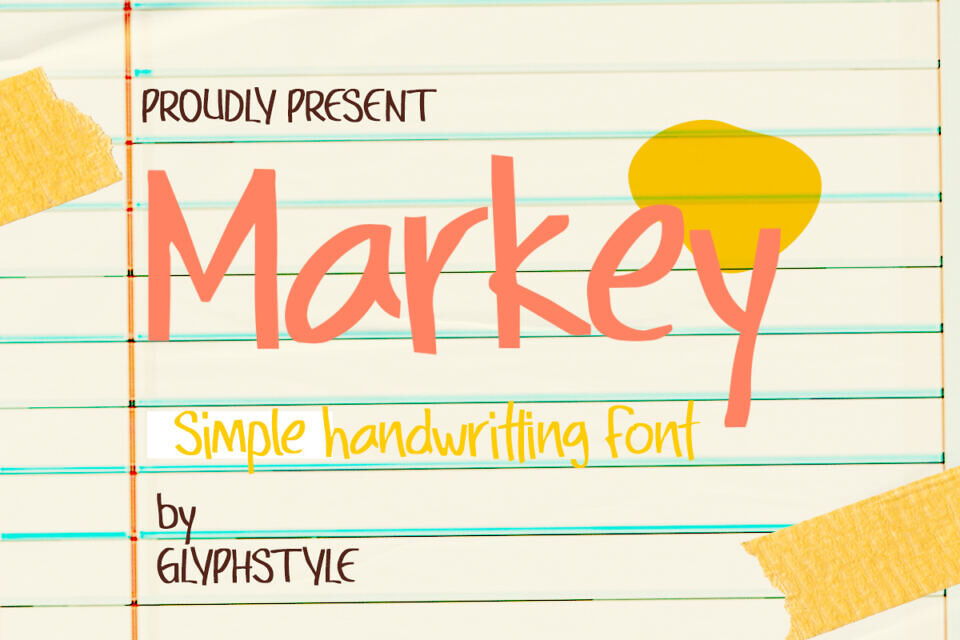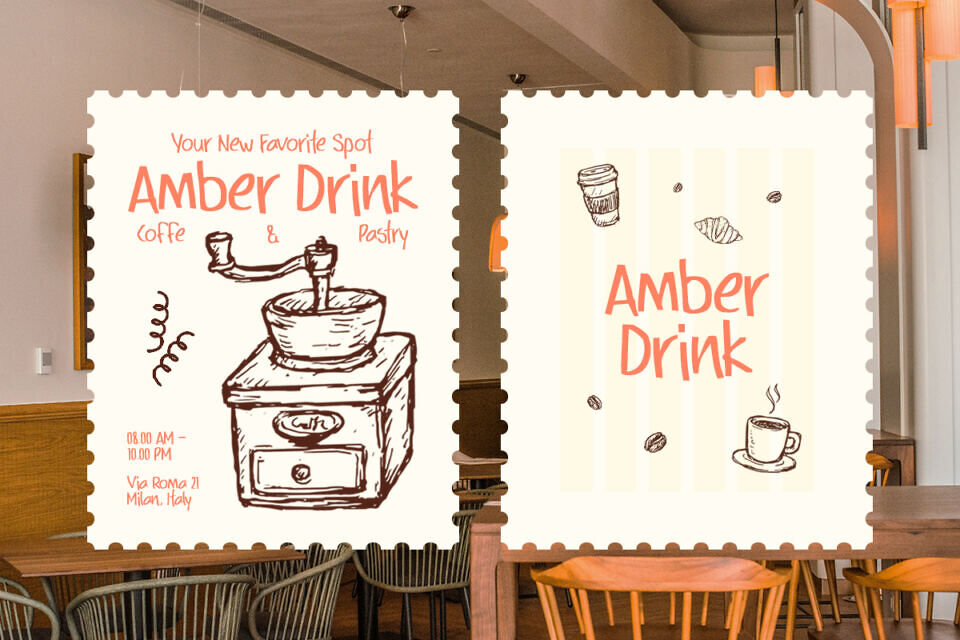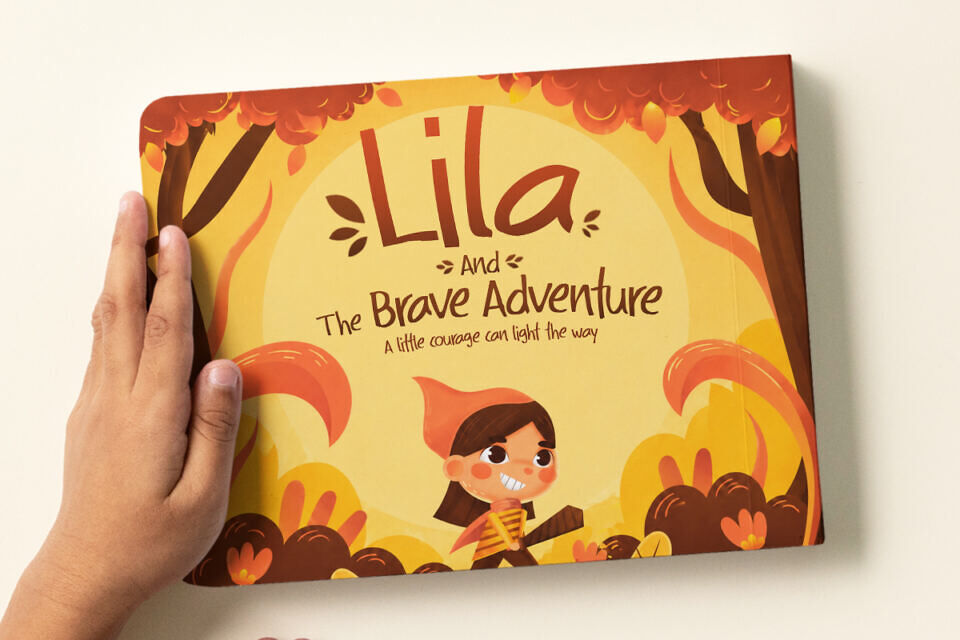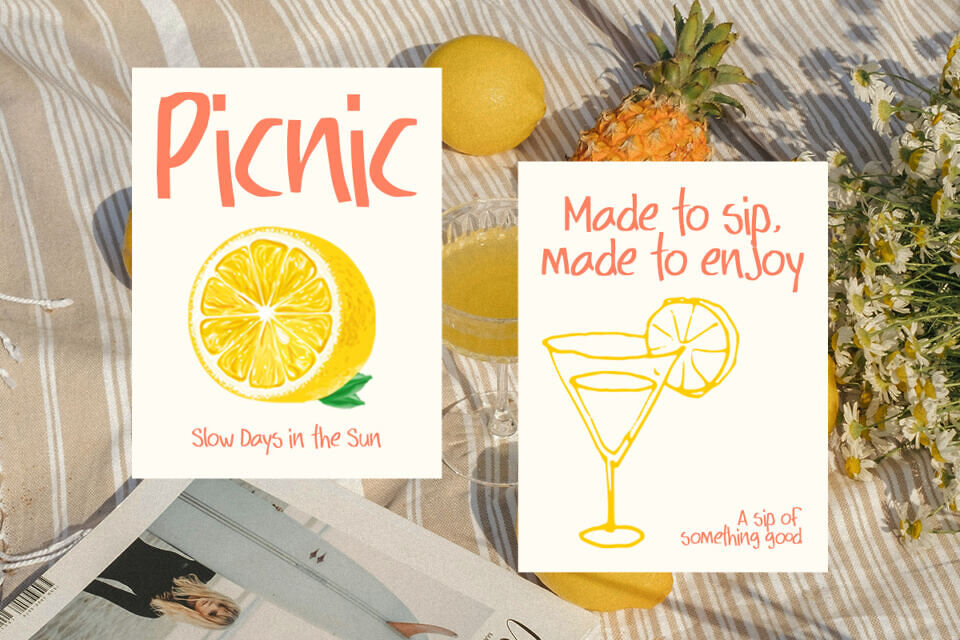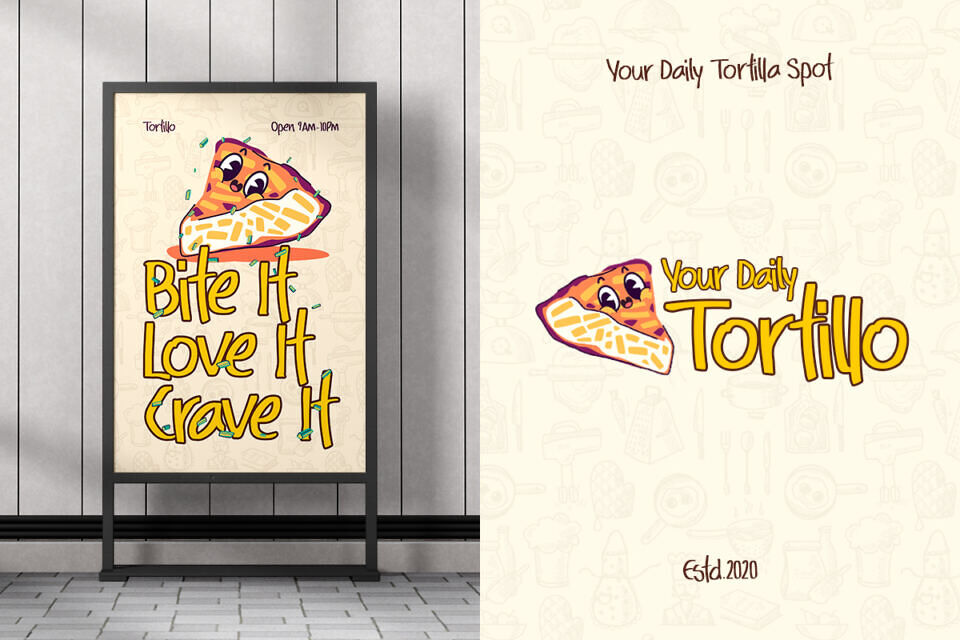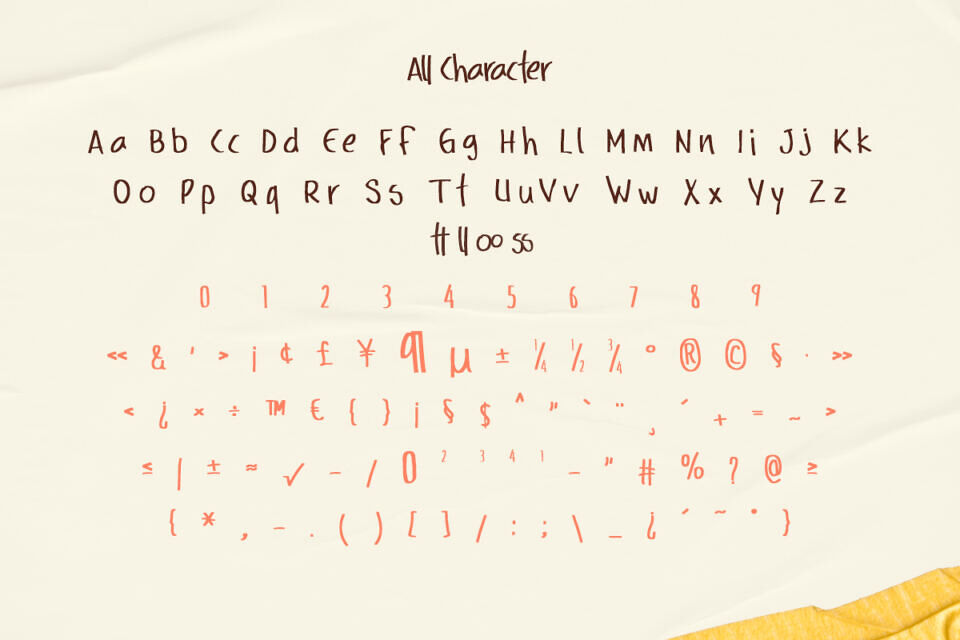
Markey is a simple handwritten font with a playful and natural feel. Designed with smooth strokes and an organic hand-drawn style, this font brings warmth, creativity, and a casual personality to any design project.
Perfect for posters, branding, social media content, packaging, quotes, invitations, and aesthetic lifestyle themes. Its clean yet expressive characters make Markey easy to read while still maintaining a charming handmade touch.